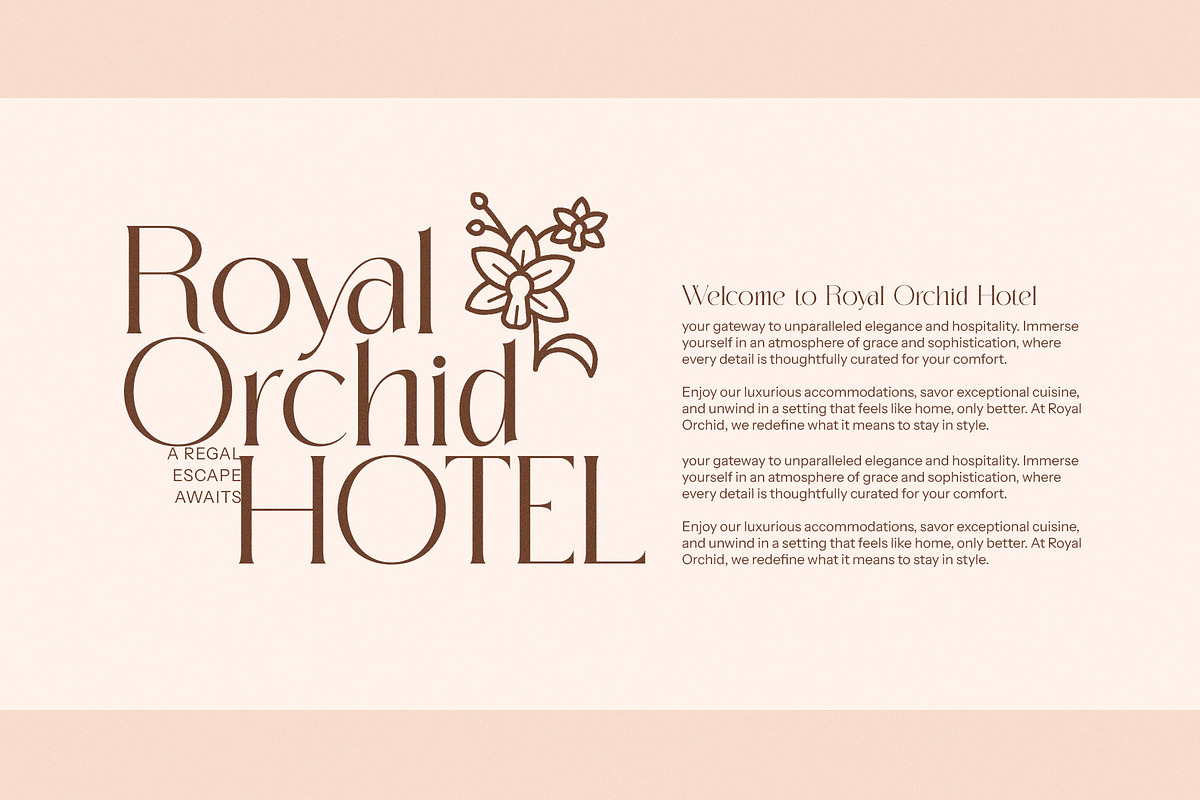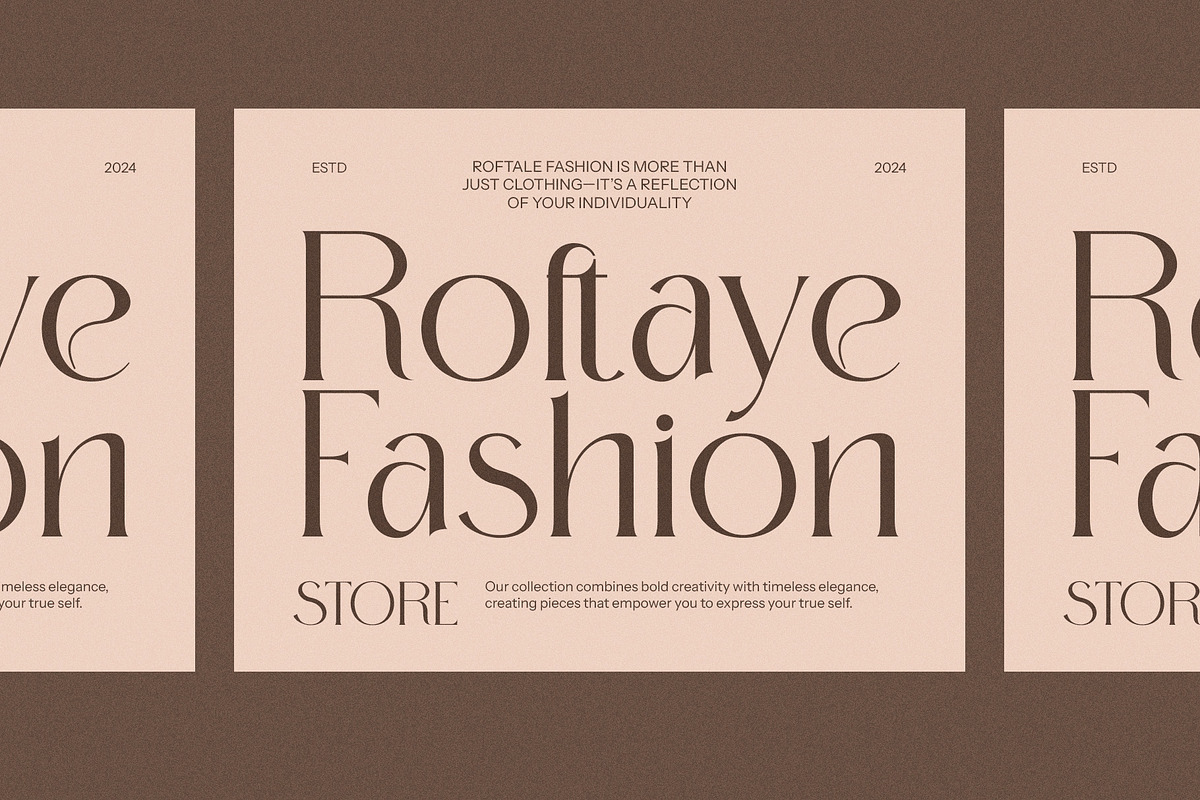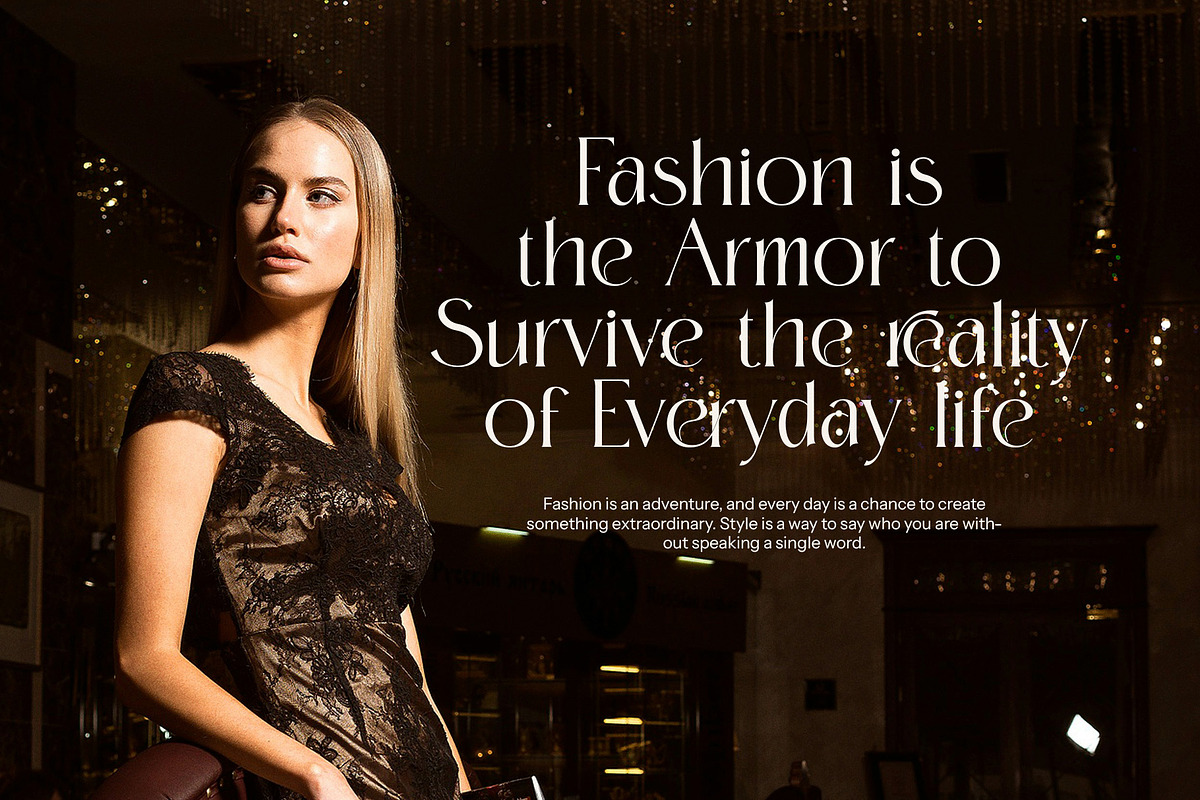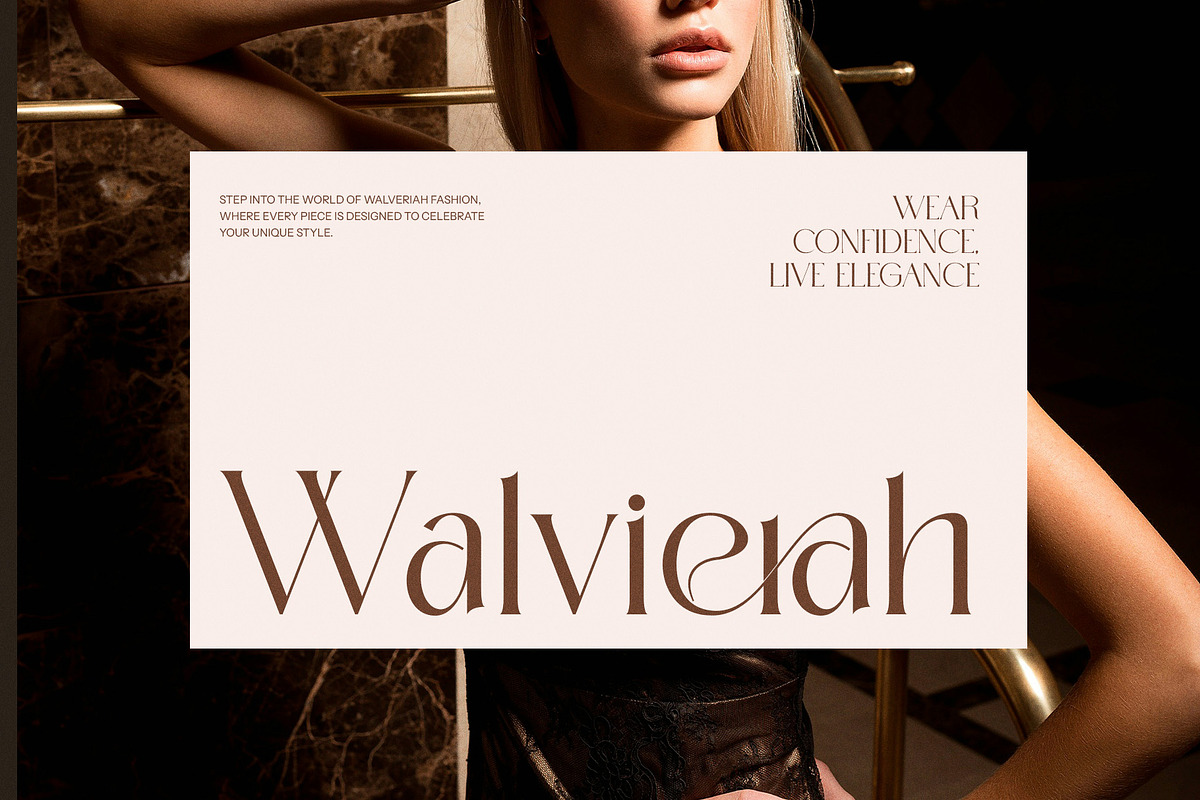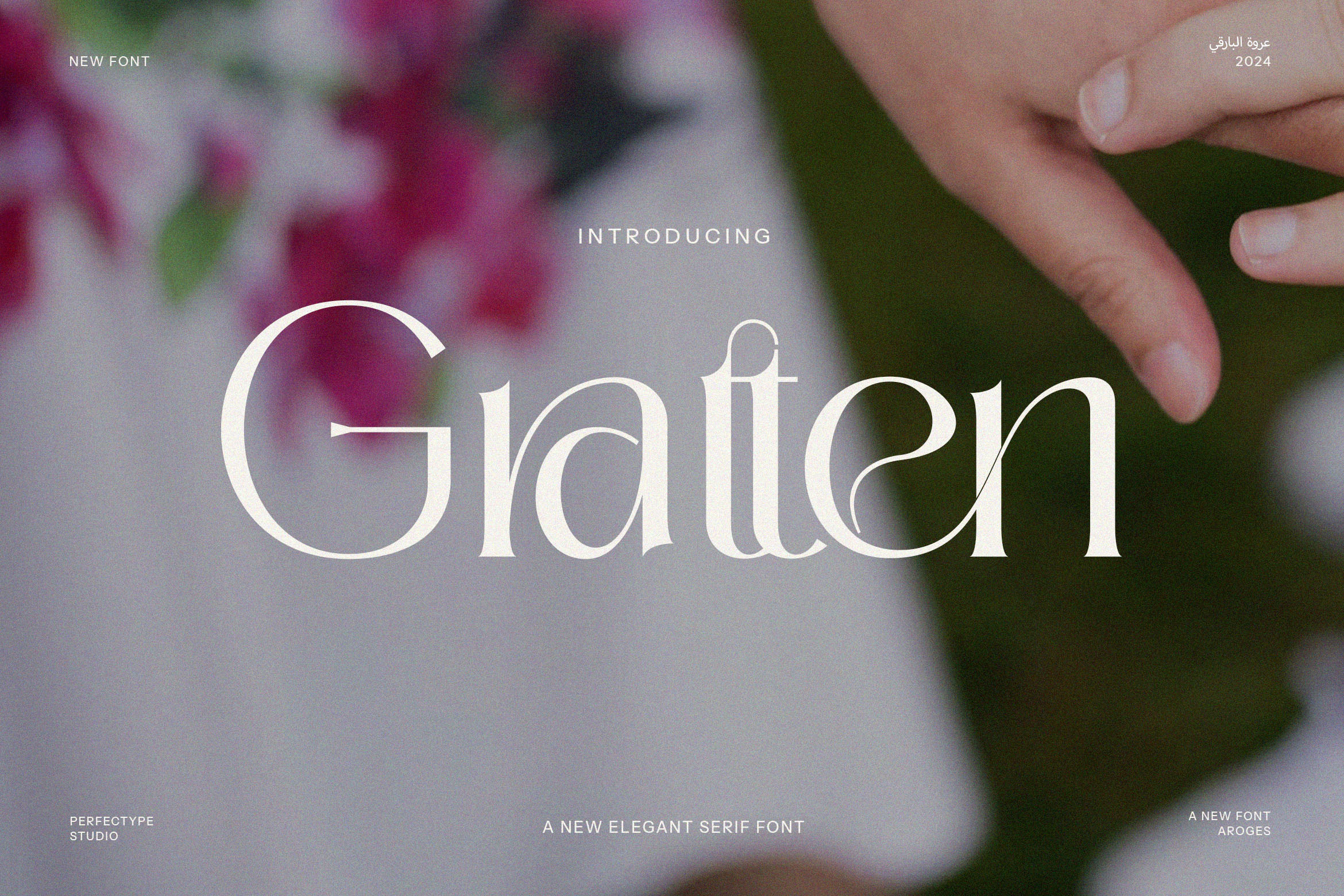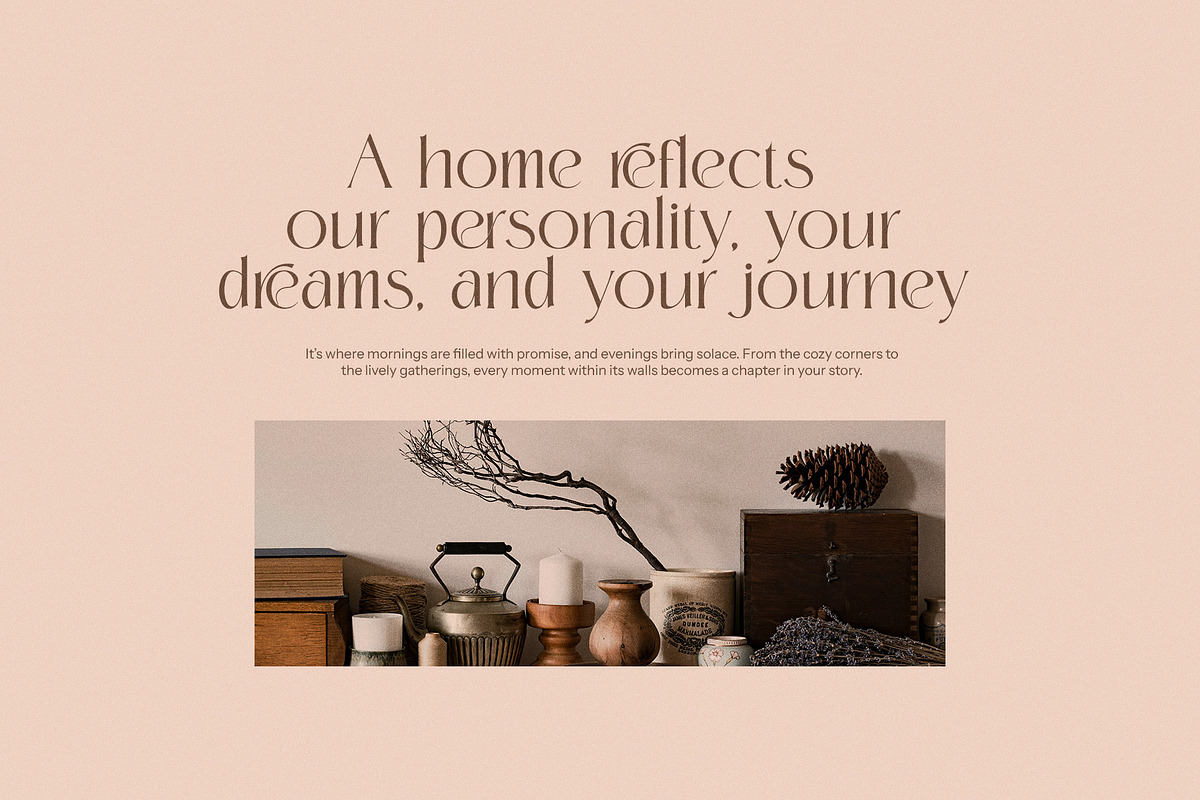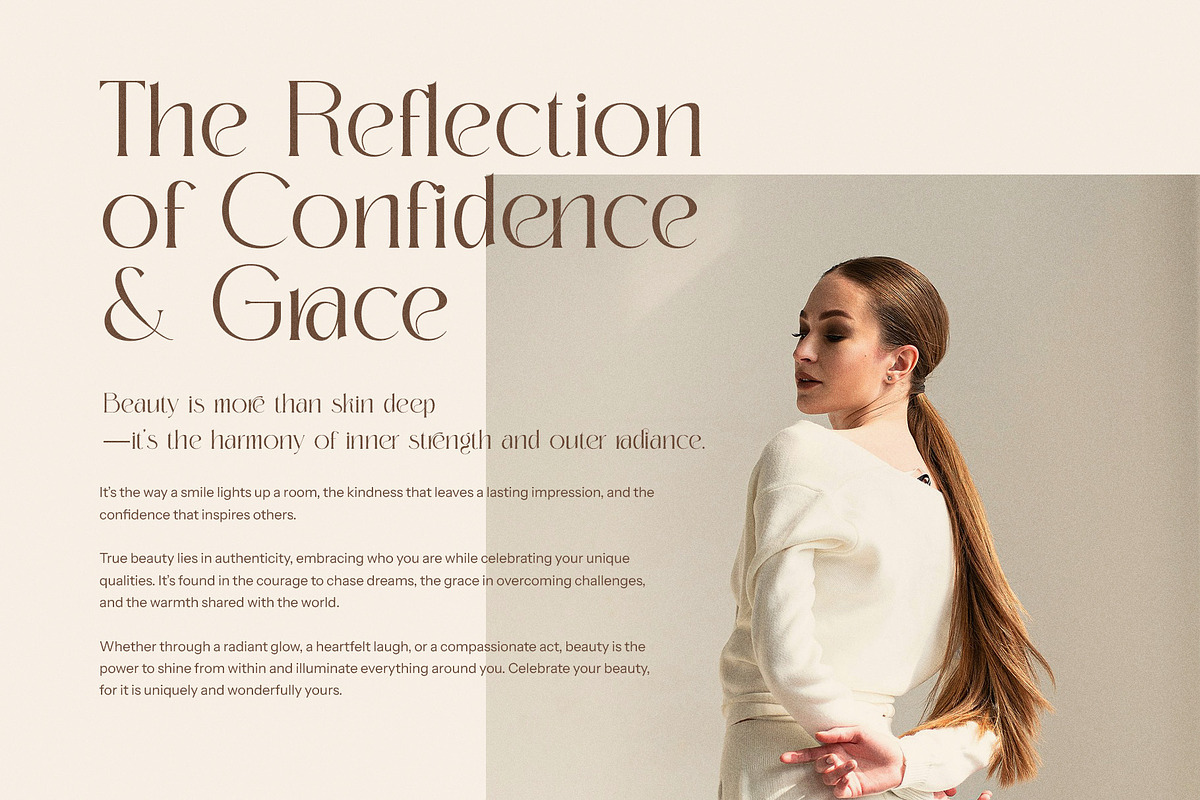
Gratten Elegant Serif Font
Gratten Elegant Serif Font is a sophisticated and contemporary typeface that blends timeless charm with modern flair. Designed with attention to detail, Gratten showcases refined serifs and clean lines, making it the perfect choice for projects that require an elevated and polished aesthetic. Its distinct ligatures and alternate characters add an artistic edge, ensuring that your designs stand out with both style and individuality.
Ideal for luxury branding, high-end logos, and upscale websites, Gratten brings an aura of elegance to any project. Its exquisite structure and versatile letterforms make it perfect for magazine layouts, premium product packaging, and attention-grabbing advertisements. Whether you're designing for fashion, lifestyle, or corporate brands, Gratten provides a sense of sophistication that enhances the overall look and feel of your designs.
This elegant serif font is not only ideal for digital and print media but also a great fit for boutiques, food branding, and editorial design, where timeless appeal is a must. Gratten’s unique ligatures and alternate characters provide added flexibility, allowing designers to create custom typographic treatments and visually captivating layouts that resonate with their audience.
With its balanced combination of classic and modern design elements, Gratten Elegant Serif Font is the perfect tool for creating powerful visual identities. Whether for a luxurious brand or an upscale product line, this font offers the elegance and versatility you need to craft memorable and distinguished designs that leave a lasting impression.